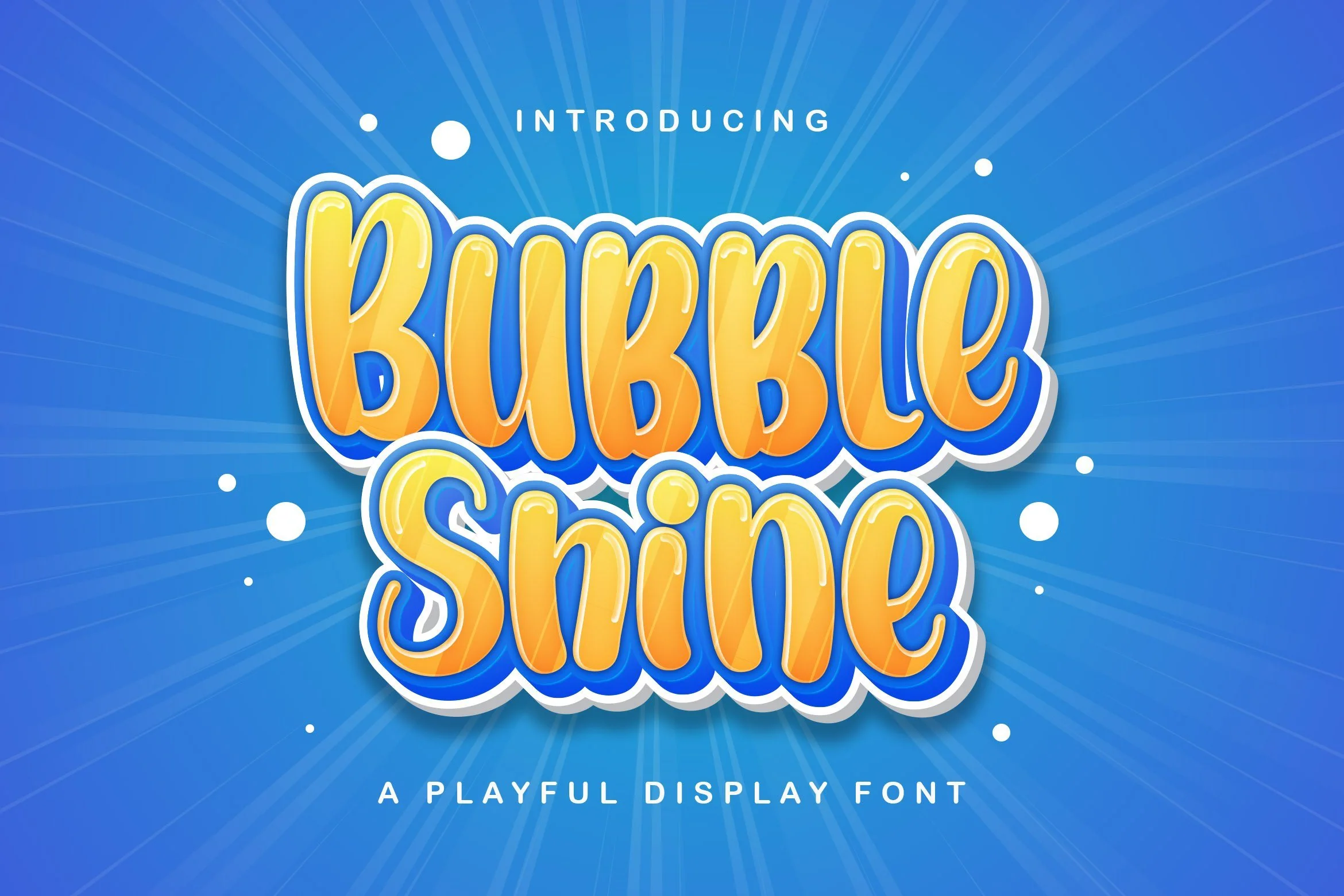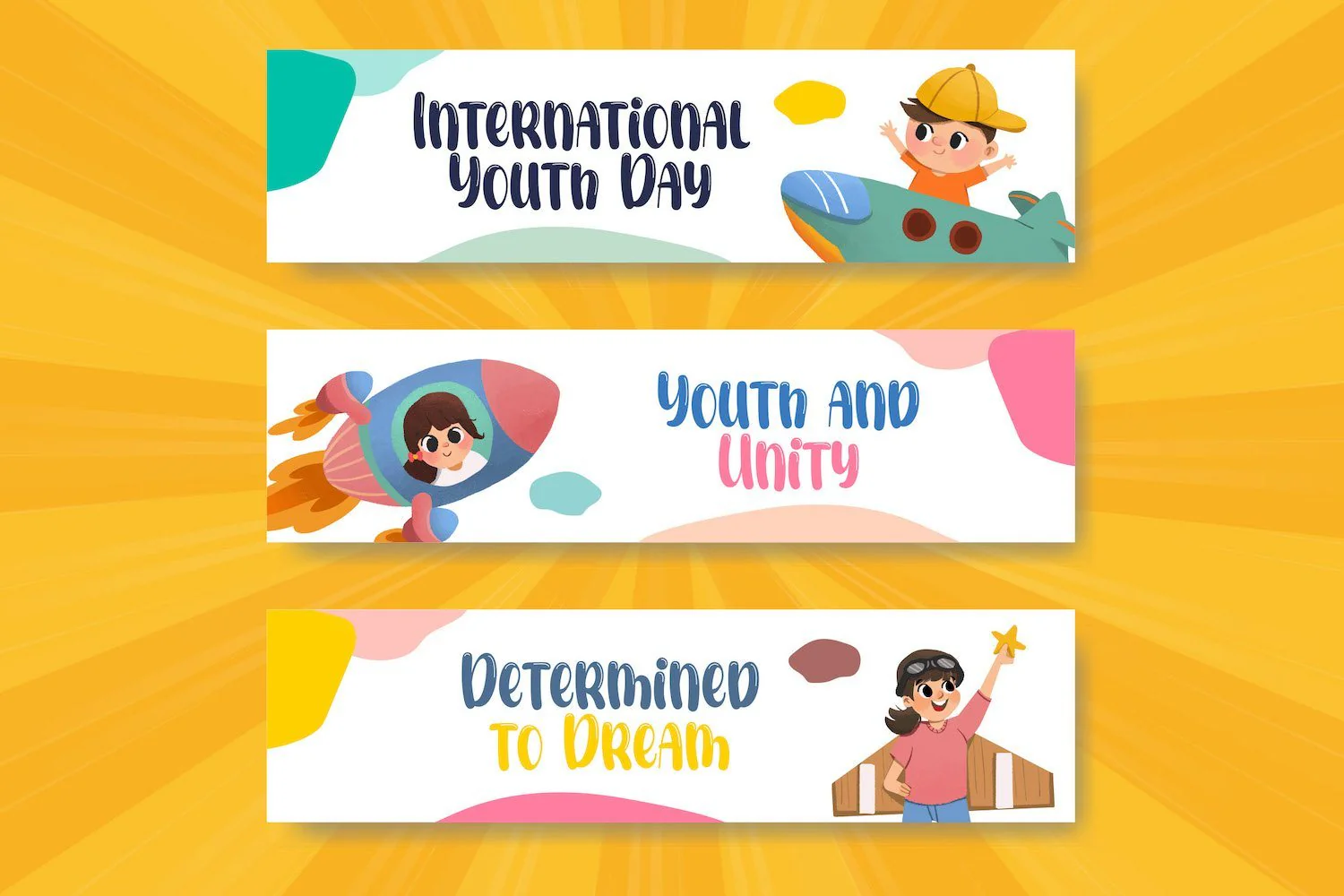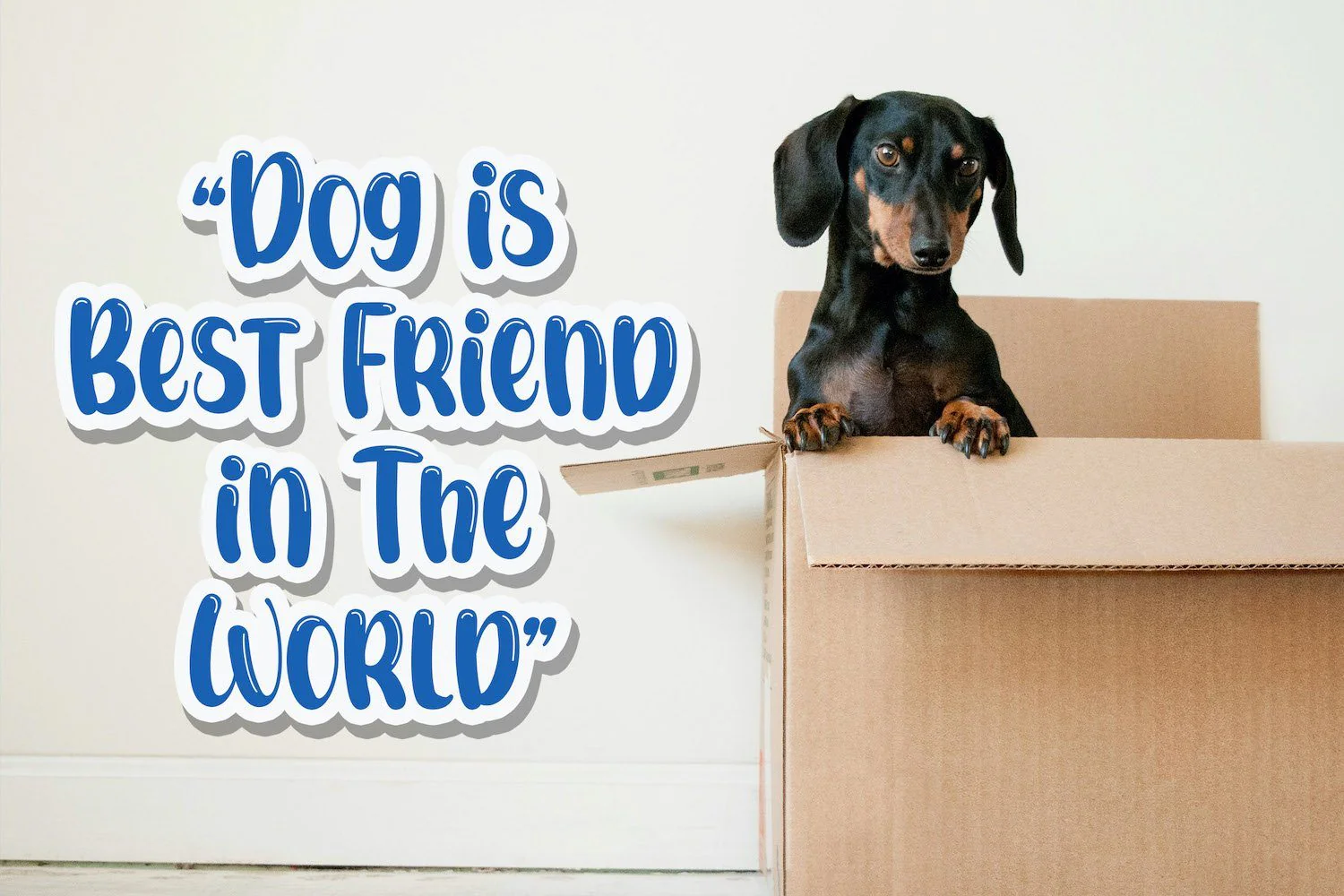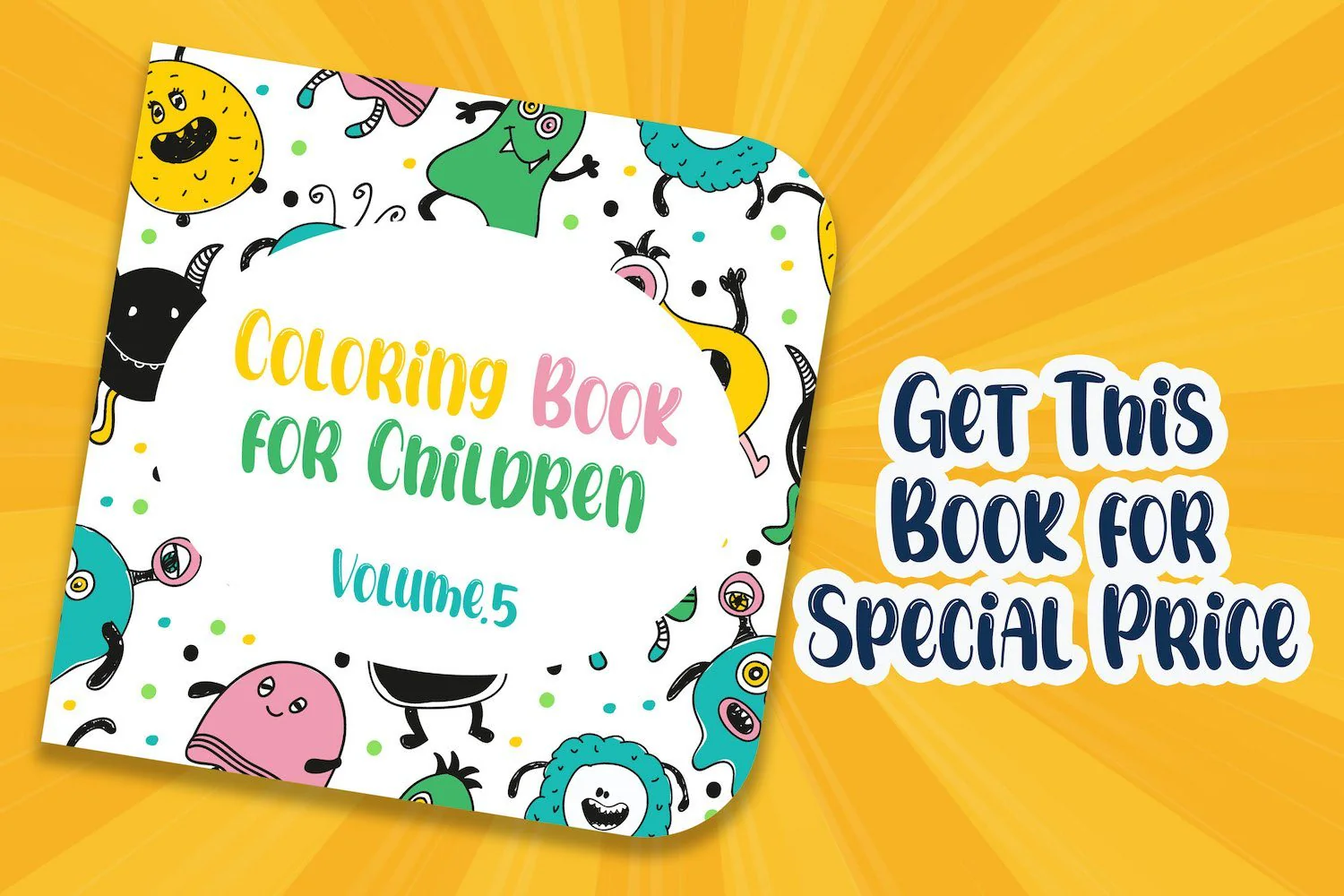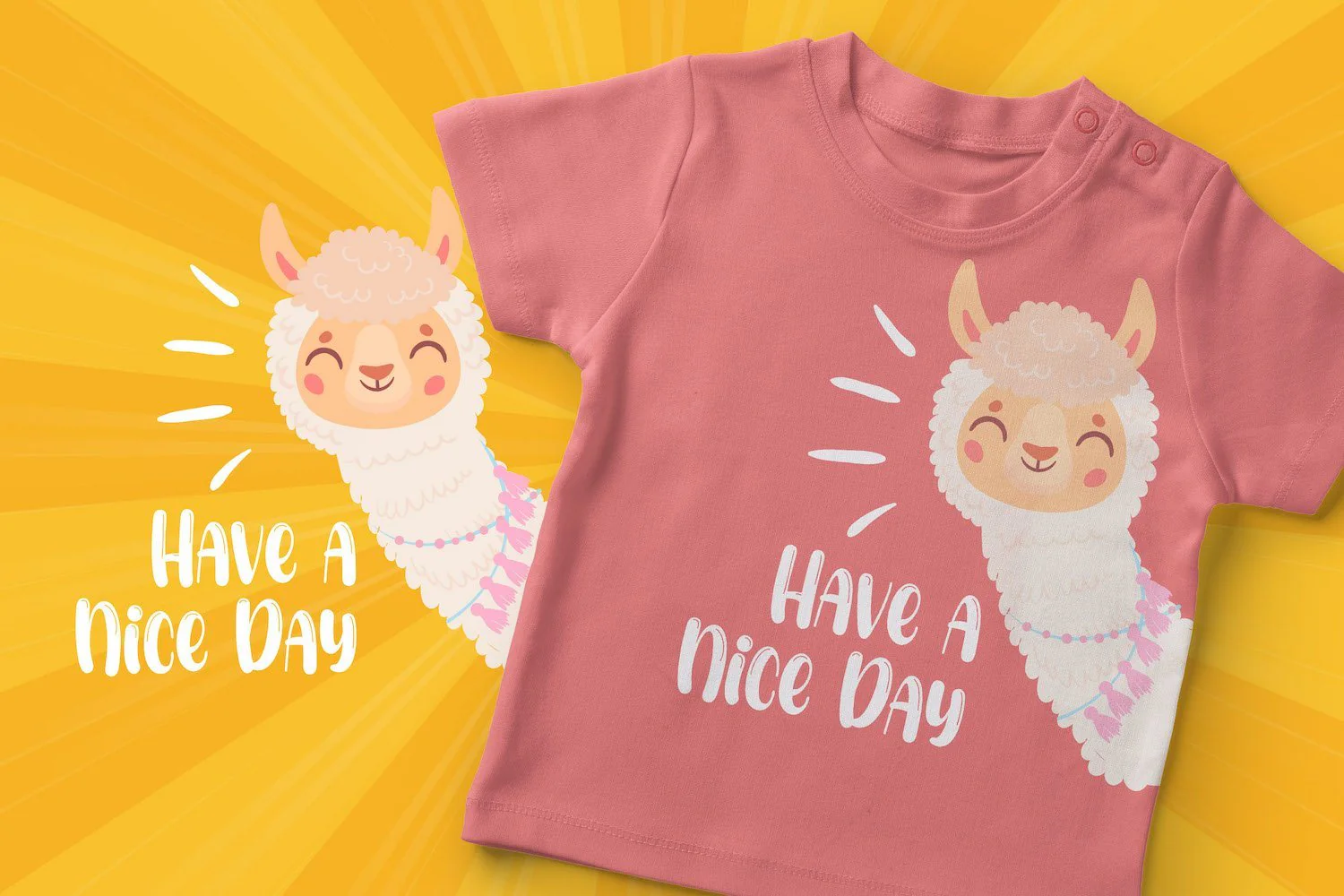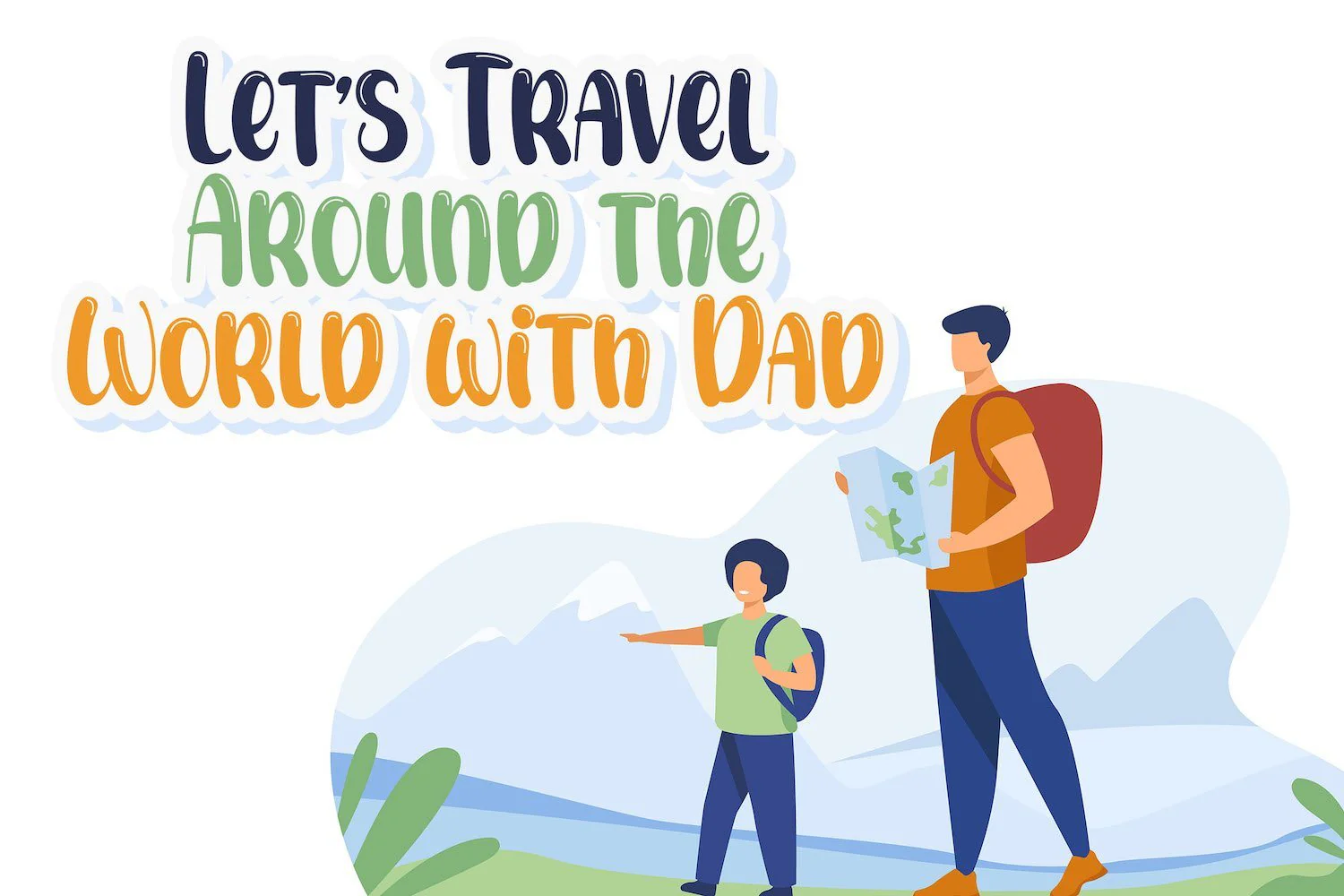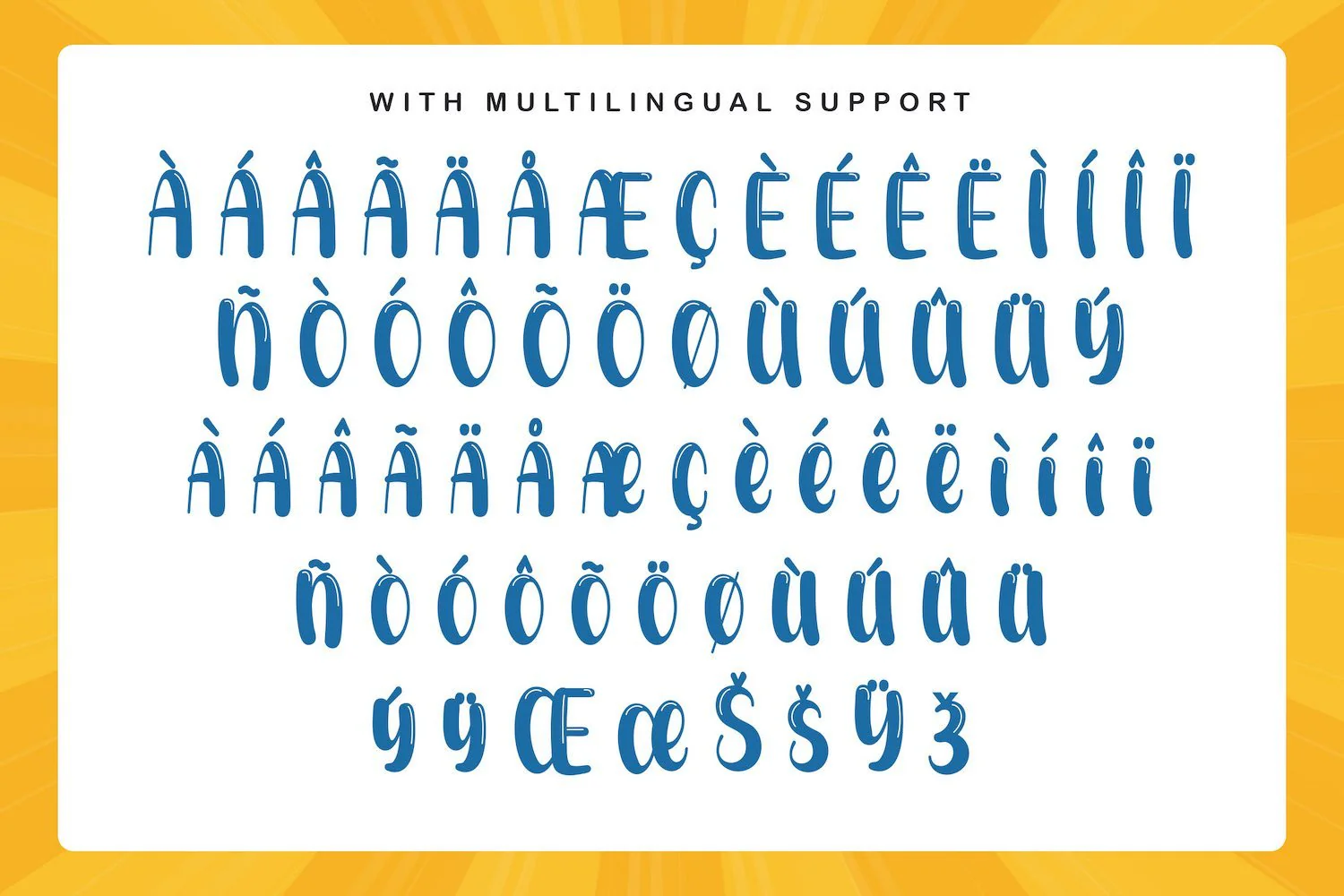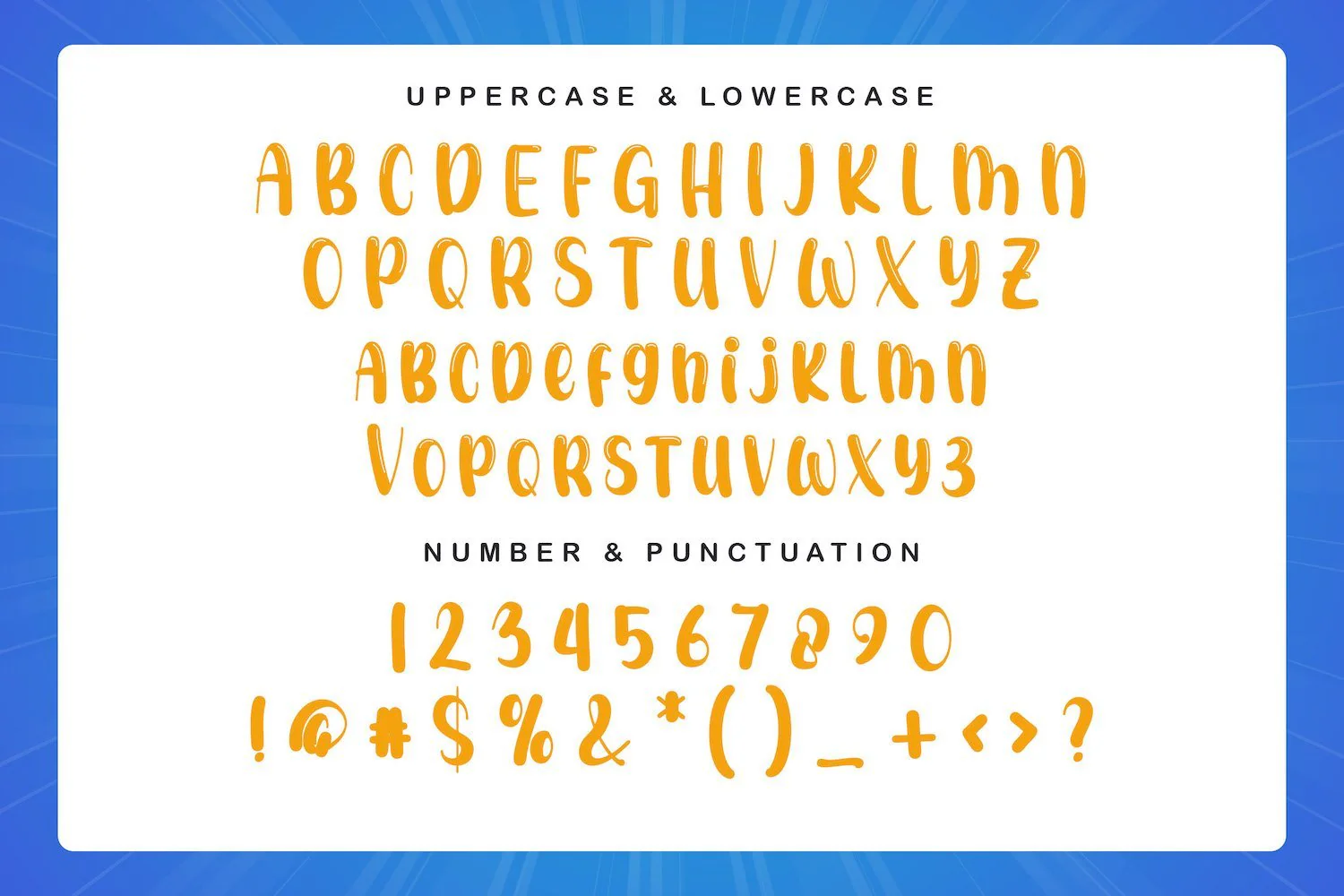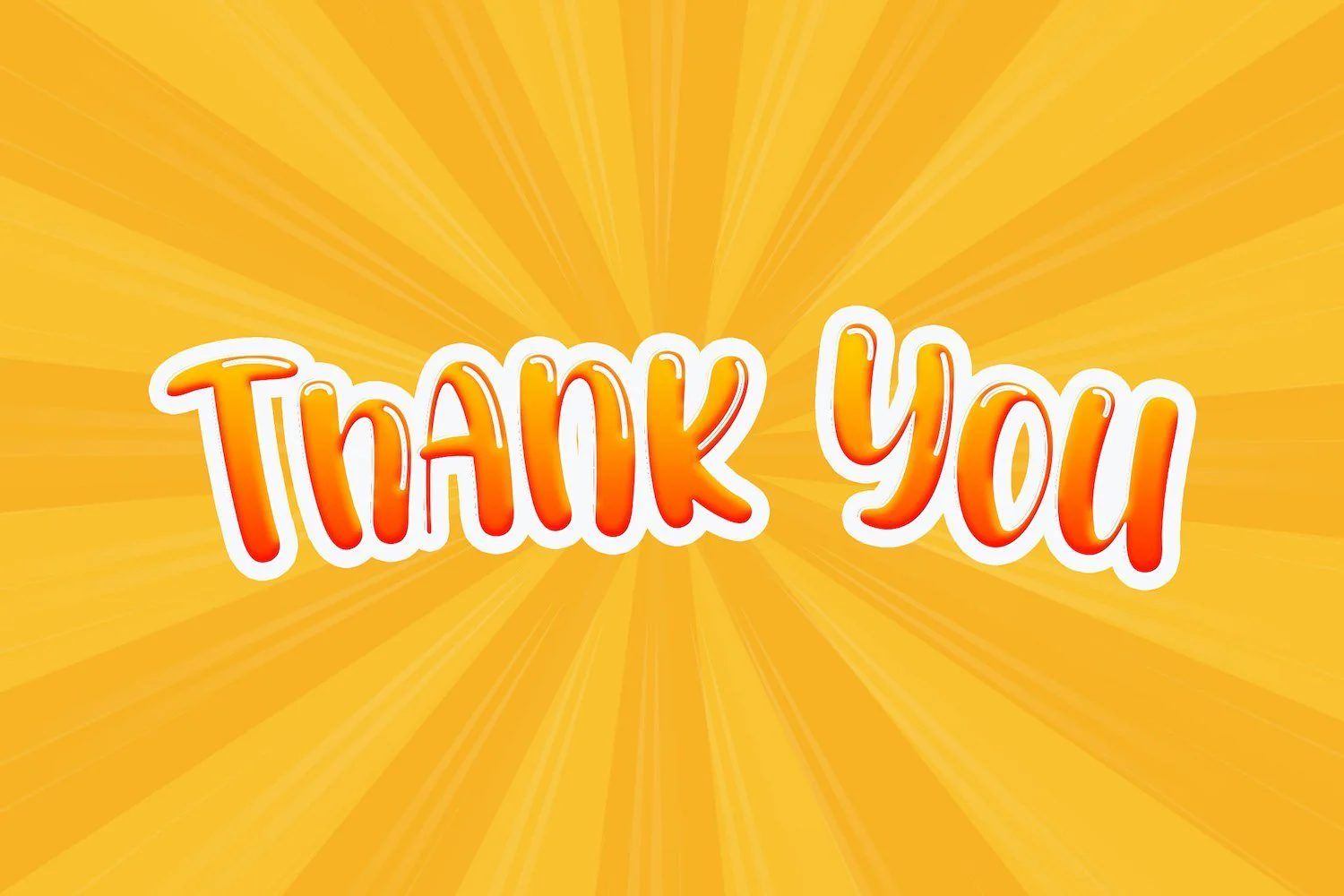
Bubble Shine - Playful Display Font
Introducing Bubble Shine - Playful Display Font
Bubble Shine is a fun display font. Playful and fresh, this font will be a hit for each of your children or school projects!
Introducing Bubble Shine - Playful Display Font
Bubble Shine is a fun display font. Playful and fresh, this font will be a hit for each of your children or school projects!